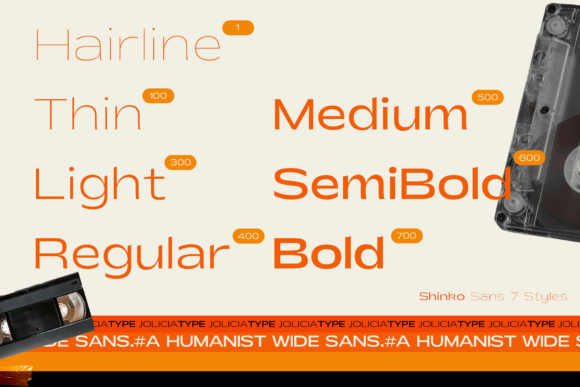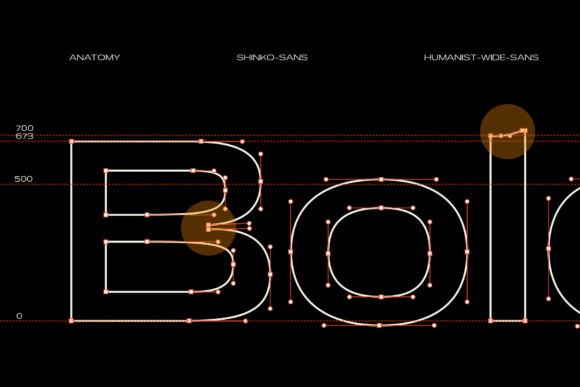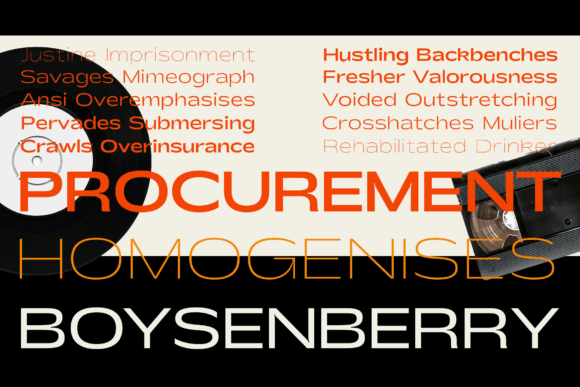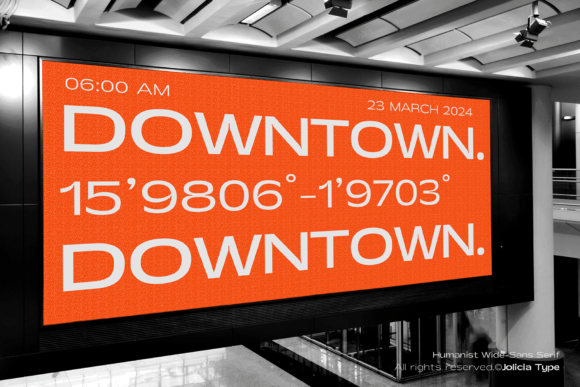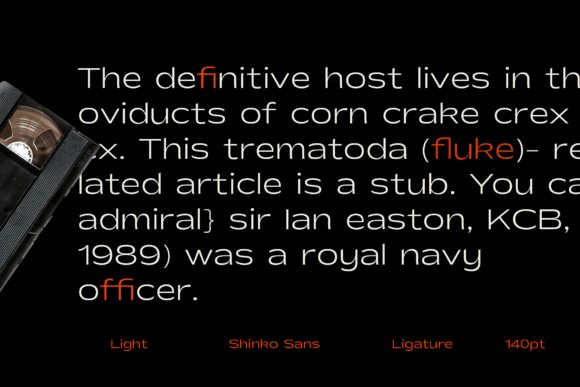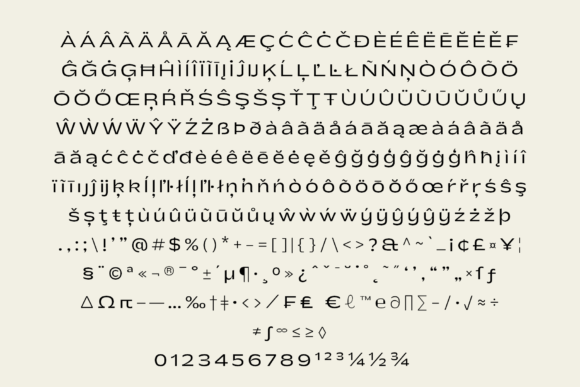
Introduction to Shinko Sans Font Font
Fonts play a crucial role in design, and the Shinko Sans Font font is a typeface that brings both character and versatility to any project. Whether you’re working on a branding project, a website, or a print design, the Shinko Sans Font font offers a unique style that can elevate your work.
Shinko Sans is a soft and wide humanist-style sans-serif font crafted by Laire Banyu, consisting of 7 weights ranging from Hairline, Thin, Light, Regular, Medium, SemiBold, to Bold.
βShinkoβ in Japanese means new old, thus it is created to convey a blend of old and new impressions The letter anatomy at the top end of the letter stems is slightly tapered to the right, while the shoulders are curved softly until they slightly bend towards the lower stem, giving a sharp and elegant impression that is pleasing to the eye.
Key Features of Shinko Sans Font Font
Why Choose Shinko Sans Font Font?
The Shinko Sans Font font is more than just a typeface β it’s a design tool that helps you communicate your message with style and clarity. Its unique character set and versatile design make it suitable for a wide range of applications, from elegant invitations to bold headlines.
With its carefully crafted letterforms and balanced proportions, the Shinko Sans Font font ensures readability and visual appeal across all mediums.
What makes Shinko Sans Font font special?
The Shinko Sans Font font stands out with its unique design, exceptional readability, and versatility across various design applications.